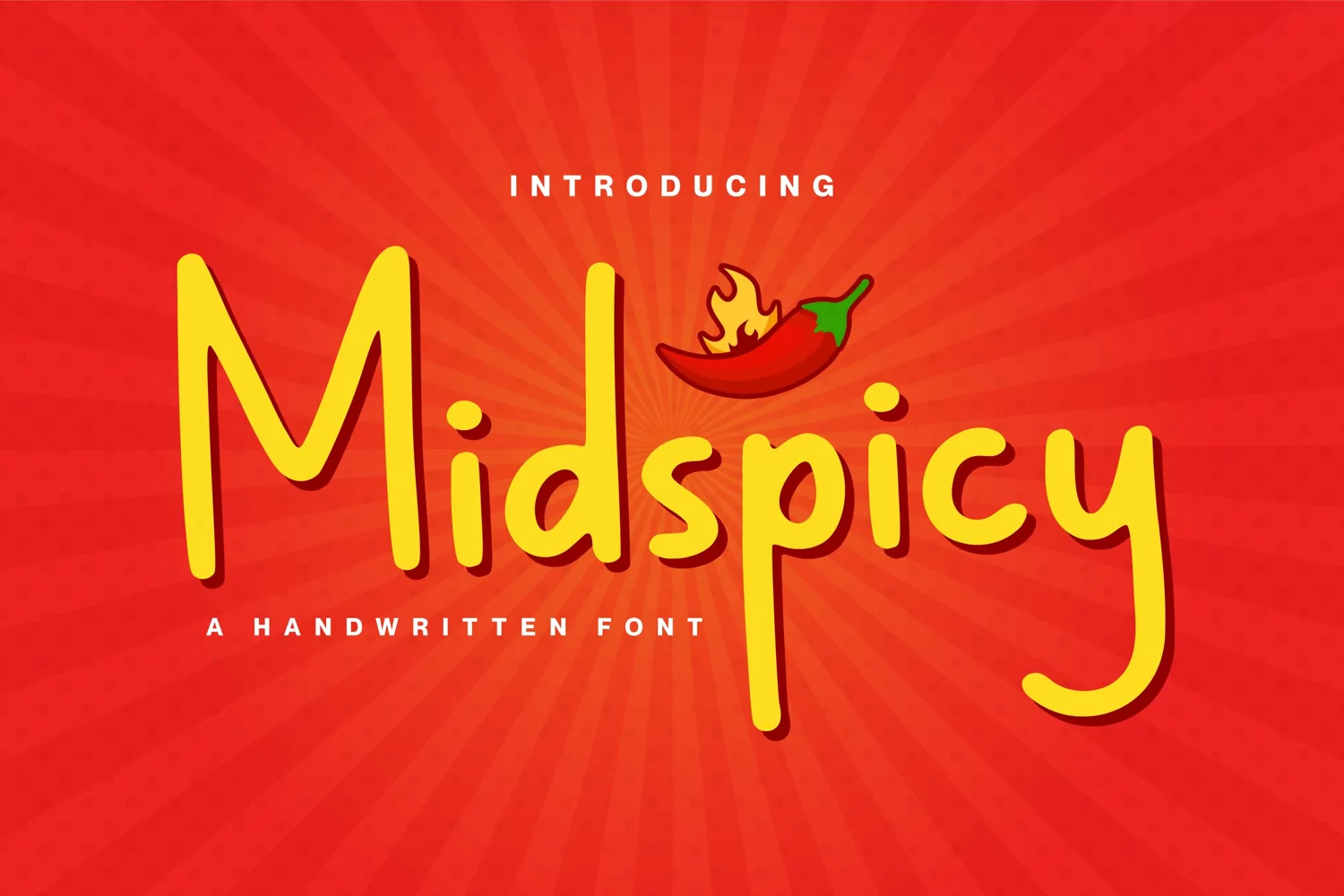
Midspicy
Midspicy Regular
Proudly Present, Midspicy
Midspicy is A Handwritten Font
Midspicy is perfect for product packaging, branding project, megazine, social media, wedding, or just used to express words above the background.